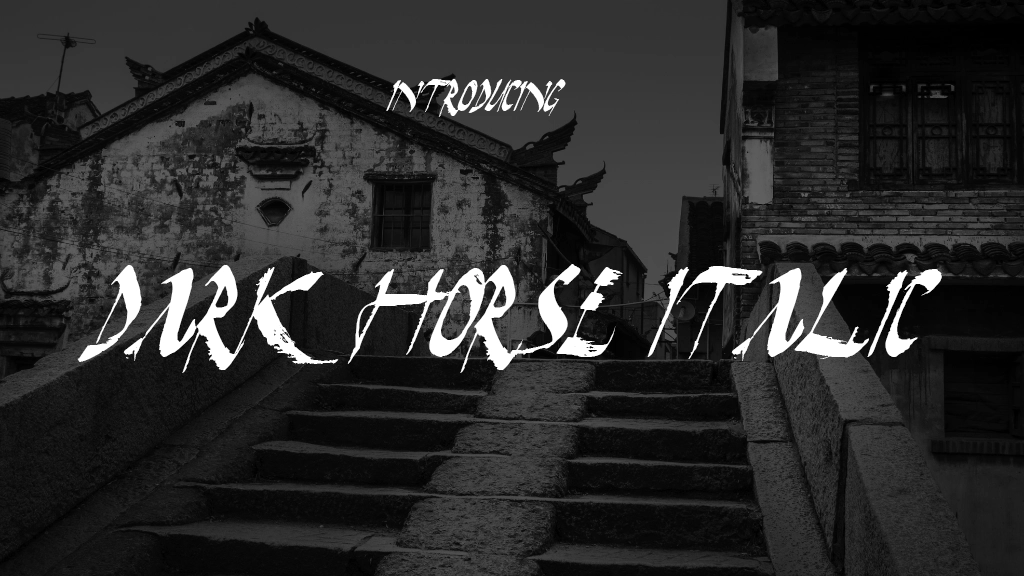
Dark Horse Italic is a fun font that is perfect for any design project. It is part of the Italic font subfamily, which means that it has a slanted appearance.